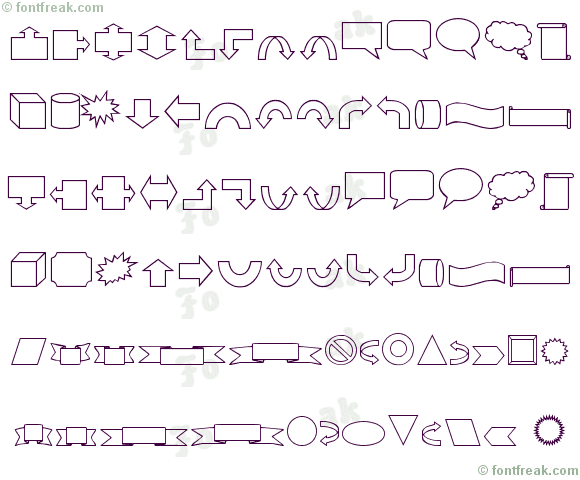
VariShapes
VariShapes Solid
About VariShapes
VariShapes, designed by Daniel Zadorozny in 2001, is a unique decorative font that stands out for its creative geometric forms. This font falls under the category of display typefaces, characterized by its playful and whimsical shapes. The visual appeal of VariShapes lies in its solid stroke weight and uniformity, which create a sense of balance while maintaining a lively aesthetic. The spacing is thoughtfully designed to ensure clarity, making it suitable for various applications without overwhelming the viewer. Each character features distinctive outlines, giving it a contemporary and artistic flair.
The best use cases for the VariShapes font include creative projects such as branding for startups, eye-catching signage for events, and dynamic graphics for digital platforms. Its playful nature makes it perfect for children's book covers and educational materials aimed at younger audiences. Additionally, VariShapes can enhance promotional content like flyers and posters, where a modern twist is desired. Graphic designers, small business owners, and content creators will find this font particularly appealing as it adds a unique touch to their work.
What sets VariShapes apart from other decorative fonts is its versatility and charm. Unlike many fonts that may be overly ornate or difficult to read, VariShapes strikes a balance between artistry and functionality. The ability to download the VariShapes font for free allows designers and creatives to incorporate this distinctive typeface into their projects without financial constraints. Its engaging shapes and modern aesthetic make it a valuable addition to any designer's toolkit, ensuring that your projects will not only capture attention but also convey a sense of creativity and innovation.